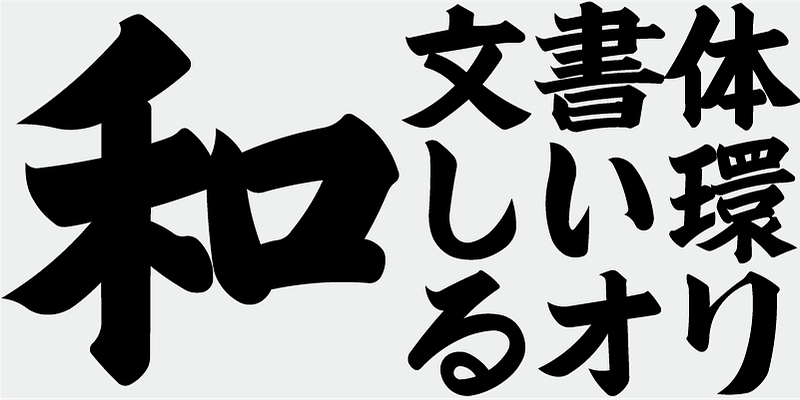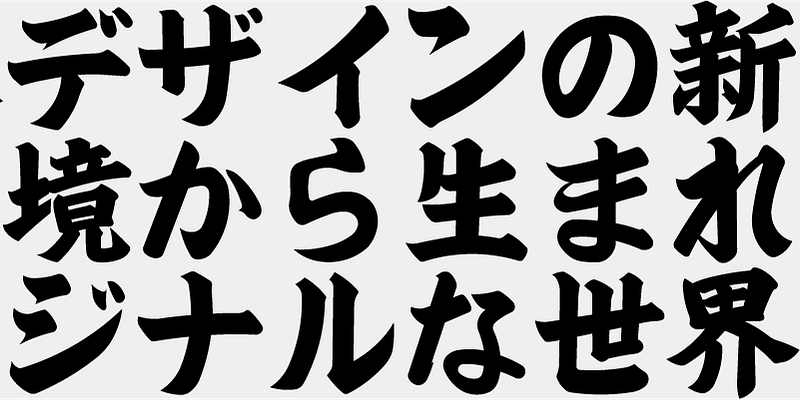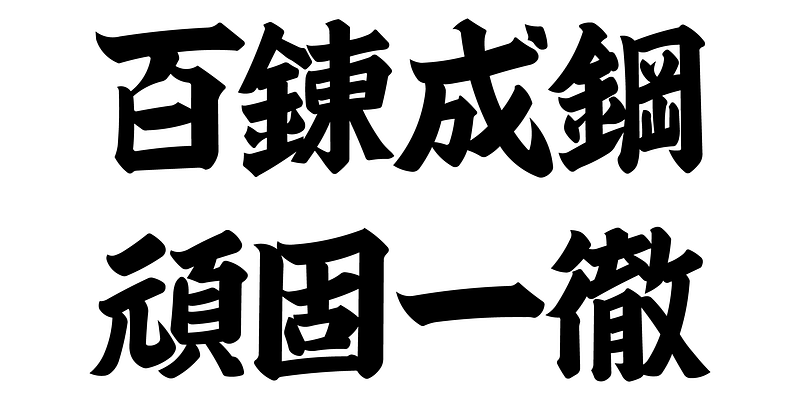
TAw-Kohitsu Kaisho is a brush kaisho (regular script) font, released in 1997 with the Gradeo software for making signs and displays. Originally named “GF Kaisho EB,” the font was renamed “TAw-Kohitsu Kaisho” with the April 2026 renewal. *Half-width characters feature designs common to the brush fonts in the TA/TAw series.
These fonts were first released in 1997, bundled with the Gradeo software for making signs and displays.